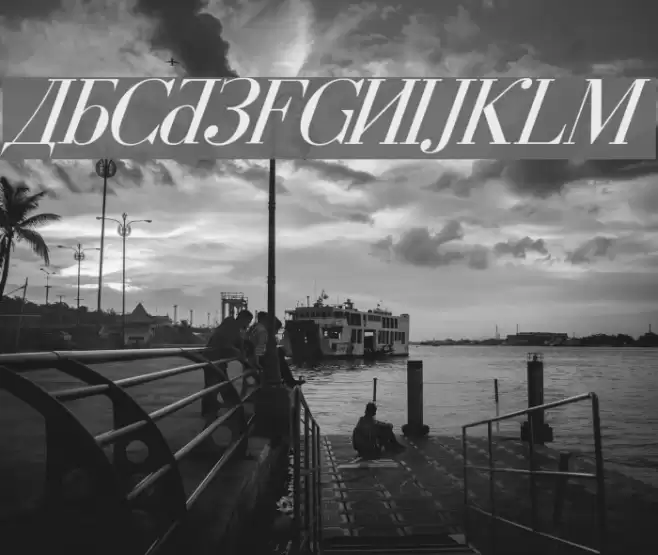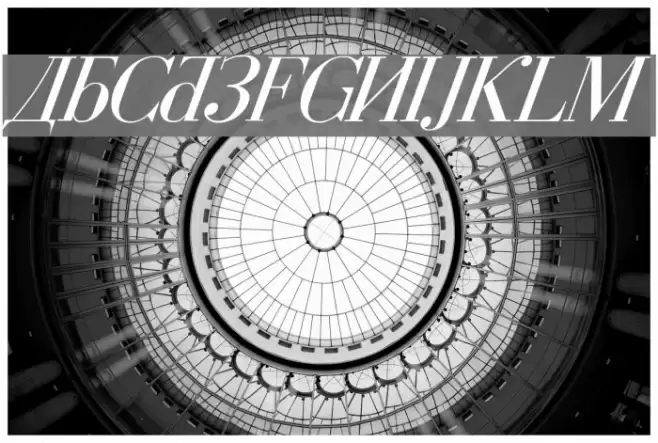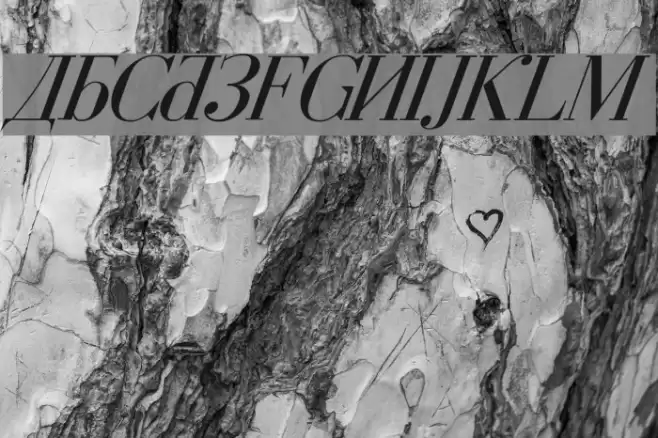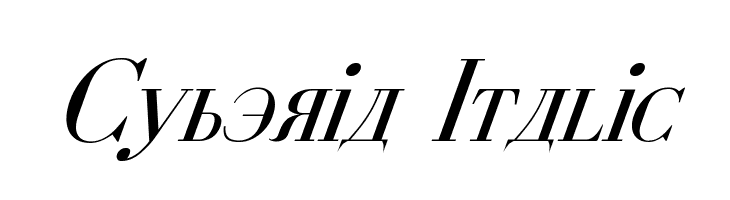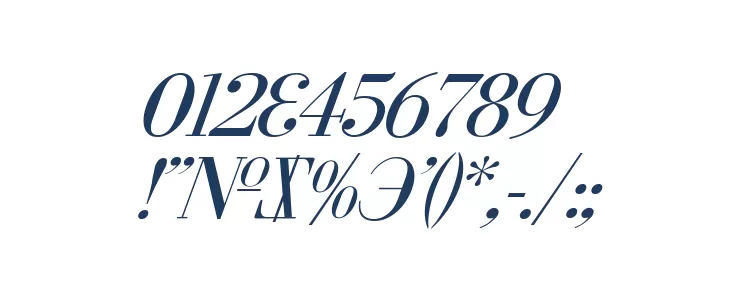
Cyberia Italic Font
Cyberia Italic Description
This font exhibits a dynamic and elegant italic style, characterized by its sharp, angular serifs and high contrast between thick and thin strokes. The letters are slanted, giving a sense of movement and sophistication. The uppercase letters have a distinctive flair, with some characters featuring unique, exaggerated curves. The lowercase letters maintain a consistent style, complementing the uppercase with their own subtle curves and angles. The numerals are bold and clear, ensuring readability while maintaining the overall aesthetic. Special characters are designed with the same attention to detail, adding to the font's versatility.
A dynamic italic serif font with sharp serifs and high contrast strokes from Formal fonts.